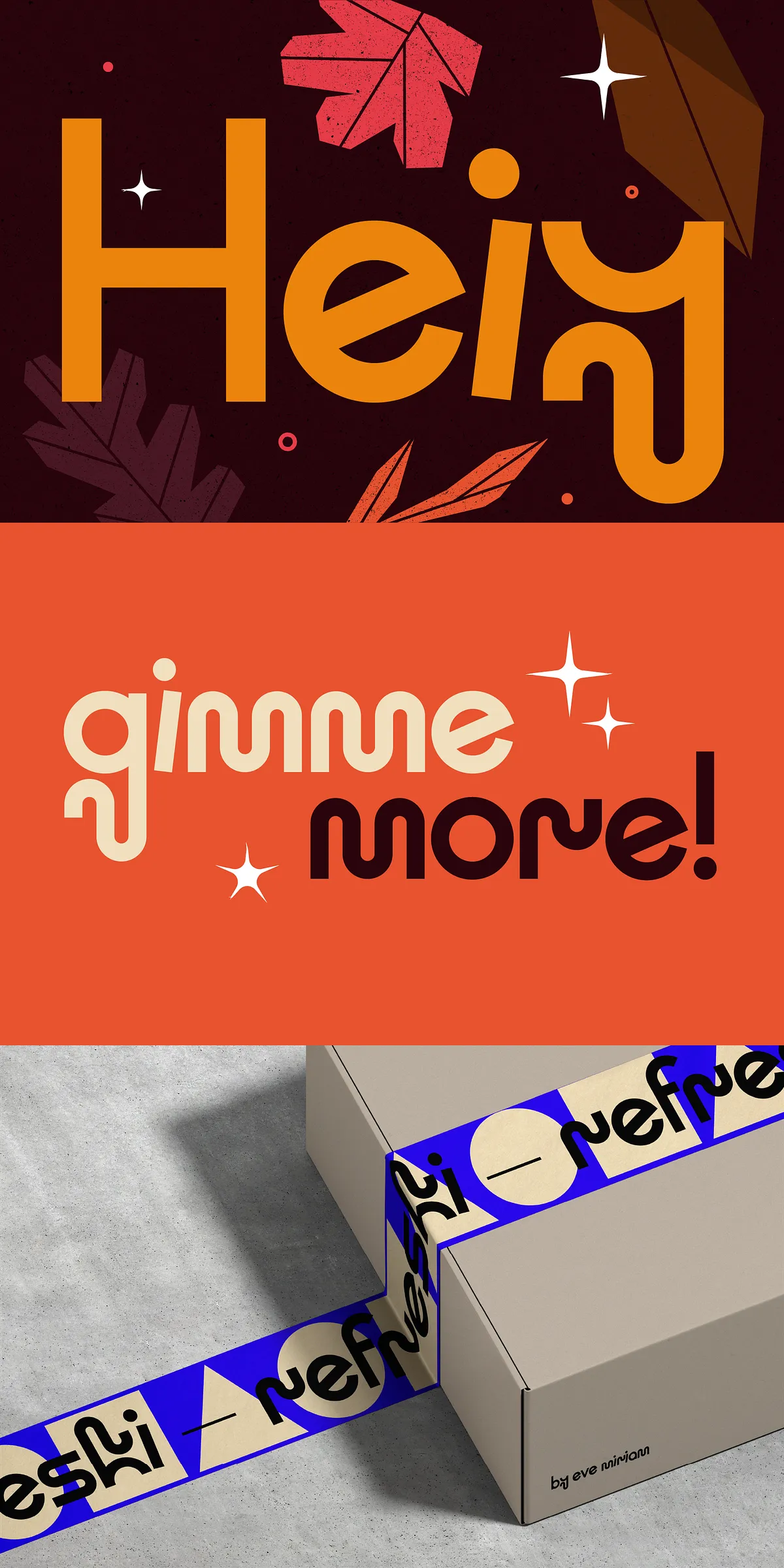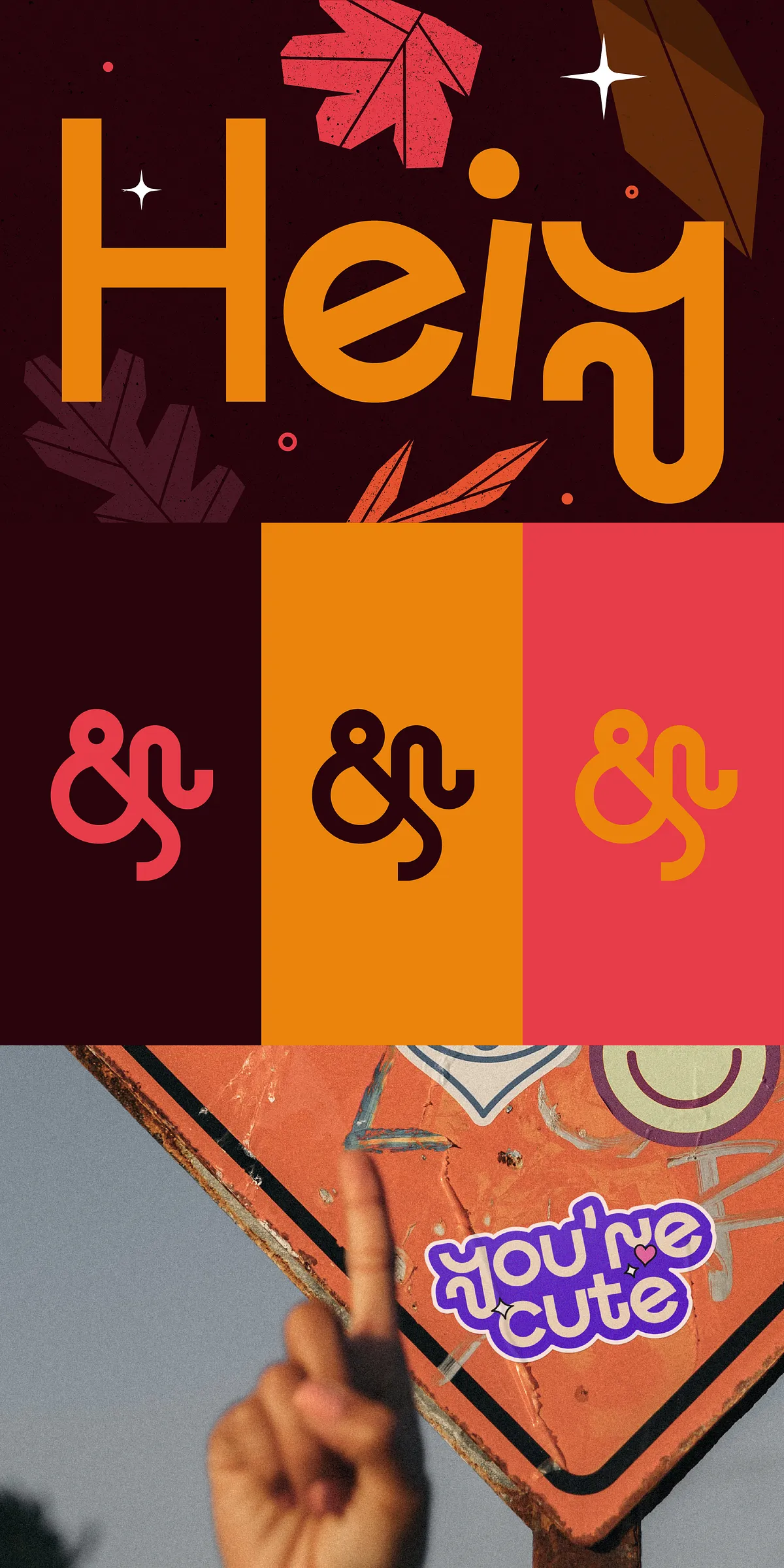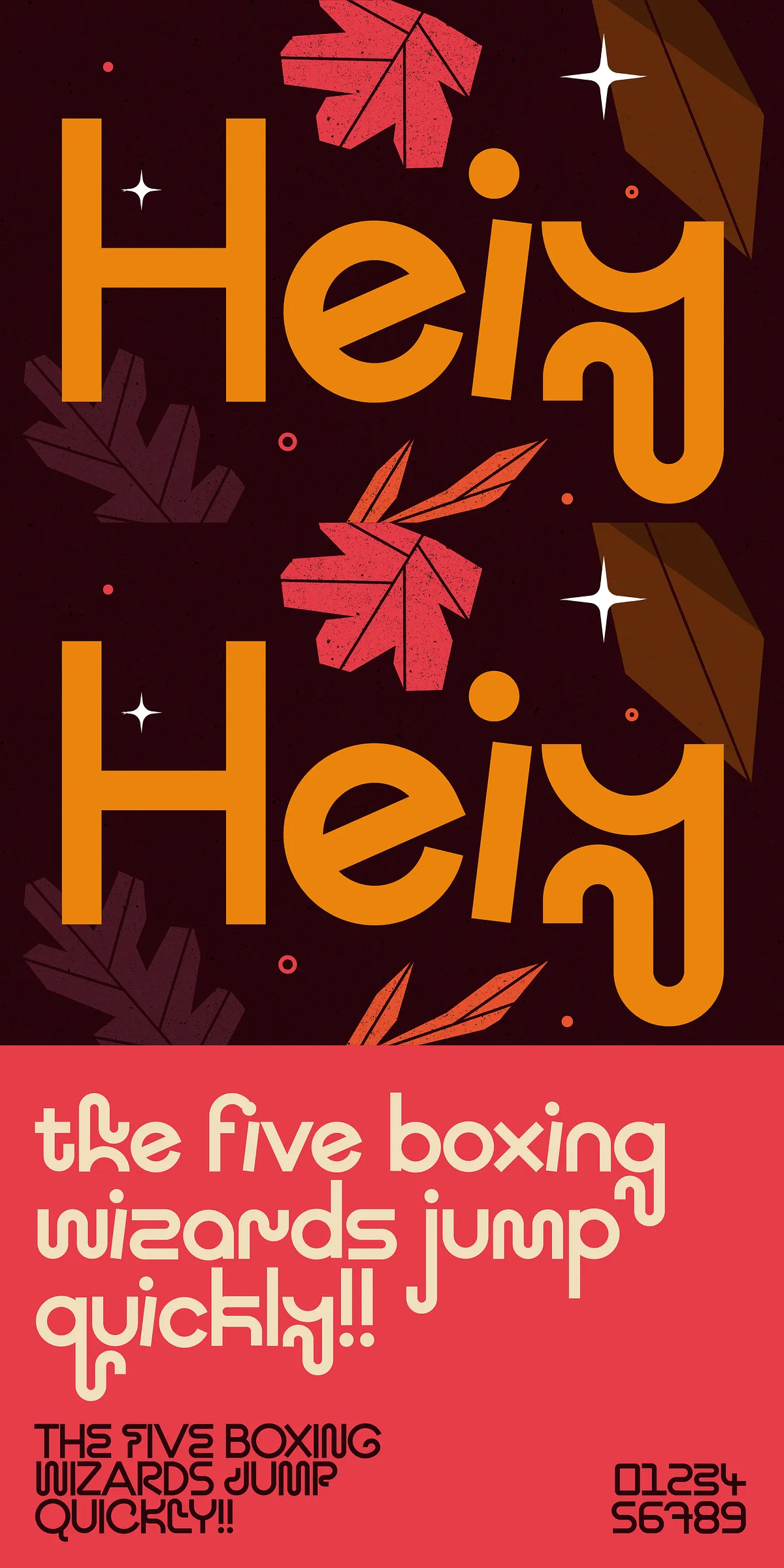
Meet Heiy — a bold, whimsical display font designed for creators who refuse to play it safe. If you’re searching for a typeface that doesn’t just convey words but tells a story, Heiy is your new creative partner. With its vibrant personality, expressive quirks, and handcrafted charm, this font turns every line into a conversation starter. Whether you’re designing a festival poster, launching a lifestyle brand, or crafting a retro-inspired album cover, Heiy adds attitude, energy, and undeniable character to your work.
Bold Personality, Complete Character Set
Heiy isn’t shy about its presence. From the moment you type your first word, its distinct formality — a blend of structured geometry and expressive flair — grabs attention. The design strikes a perfect balance between readability and fun, making it ideal for large-scale visuals where impact matters.
- Full Upper and Lowercase Coverage: Every letter, from A to Z and a to z, is meticulously crafted to maintain cohesion and charm. No placeholder forms — just consistent personality at every size.
- Numbers, Punctuation & Symbols: Includes numerals, commas, dashes, quotation marks, and a full suite of special characters — essential for headlines, labels, social media graphics, and branding.
Where Heiy Shines: Design Applications That Demand Character
Heiy isn’t meant for quiet corners. It thrives where the spotlight is bright:
- Branding & Logos: Craft a unique brand identity with a custom wordmark that reflects fun, confidence, and flair.
- Event & Festival Promotions: Use it for flyers, stage backdrops, or social media posts that demand attention and vibe.
- Retro & 80s-Inspired Projects: Perfect for nostalgic design themes with a modern twist.
- Product Packaging & Labels: Make your box stand out with bold, engaging text that draws the eye.
- Social Media Content: Turn tweets, posts, and stories into bold visual statements that viewers can’t scroll past.
Design With a Voice of Its Own
Heiy’s magic lies not in uniformity, but in its deliberate imperfections — the slight irregularities in stroke endings, the intentional asymmetry in letterforms, and the confident stance of every character. These aren’t flaws. They’re features. They give the typeface a hand-drawn warmth and a sense of life that mass-produced fonts often lack.
Use alternate glyphs (where available) to add rhythm and variety. Swap out a standard “E” for a bolder variant, or use a playful “T” with a curved stem to create visual interest. Let your design speak in tones, not just text.
Engineered for Modern Creatives
Whether you’re working on a print campaign or a digital animation, Heiy adapts — always staying legible, never losing its voice. It scales beautifully from a tiny app icon to a massive billboards, maintaining its playful identity at any size.
Stop Blending In. Start Standing Out With Heiy
Say goodbye to generic typefaces that fade into the background. Heiy is built for those who want their messages to be not just read, but remembered. It’s more than a font — it’s a design attitude, a bold declaration of personality.